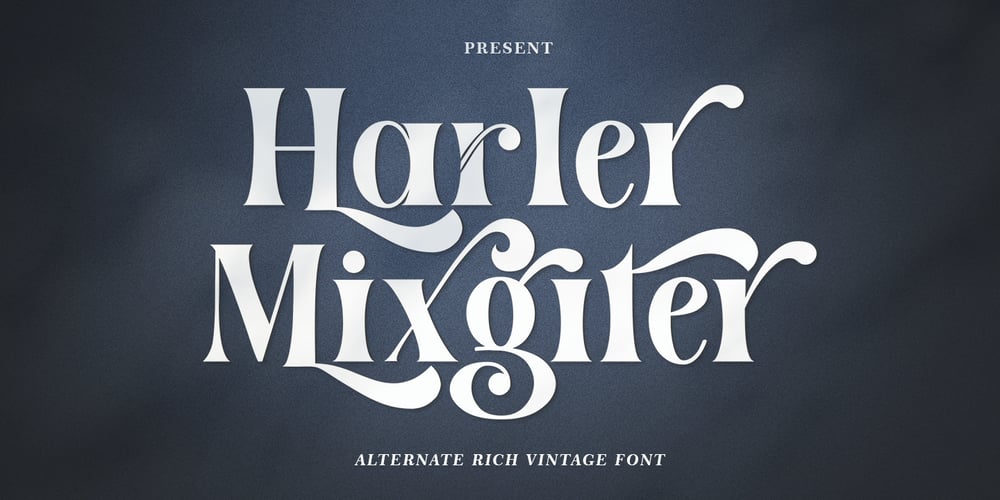
Harler Mixgiter Font Family was designed by Ikhsan Maulana and published by IM Studio. Harler Mixgiter contains 2 styles and family package options. The Harler Mixgiter blends retro 70 style with balloon typography combined with simple serifs and modern elegance, The Harler Mixgiter is fully featured, in each letter there are attractive alternatives and added bonuses that make you feel youthful in realizing your designs. want. so what are you waiting for?Harler Mixgiter is suitable for movie titles, posters, logos, quotes, product packaging, clothing designs, book covers and many other uses.What’s included?- Uppercase characters- Lowercase characters- Foreign language support: ÀÁÂÃÄÅÆÇÈÉÊËÌÍÎÏÐÑÒÓÔÕÖØÙÚÛÜÝßBonus FEATURESThe Harler Mixgiter (OTF)The Harler Mixgiter Bold (OTF)So what are you waiting for? immediately buy this font, Thank you for seeing it.Regards,IM Studio.